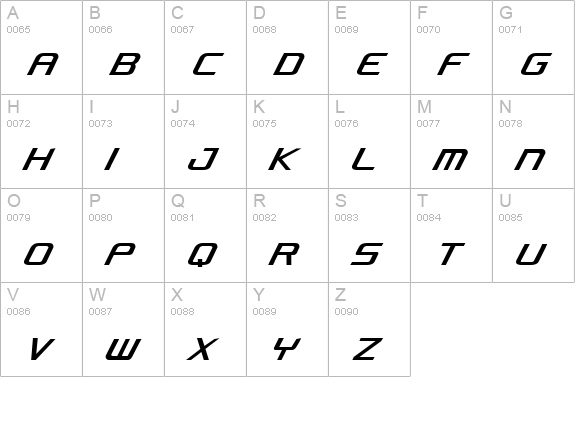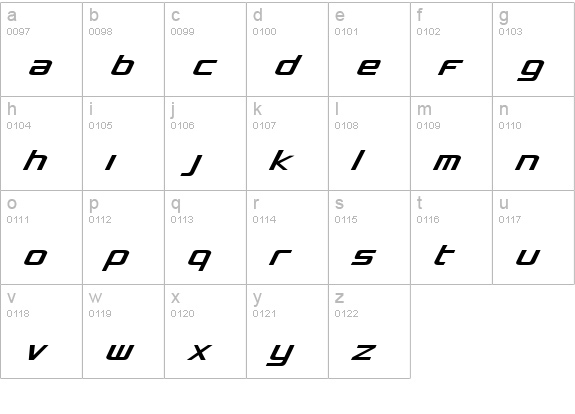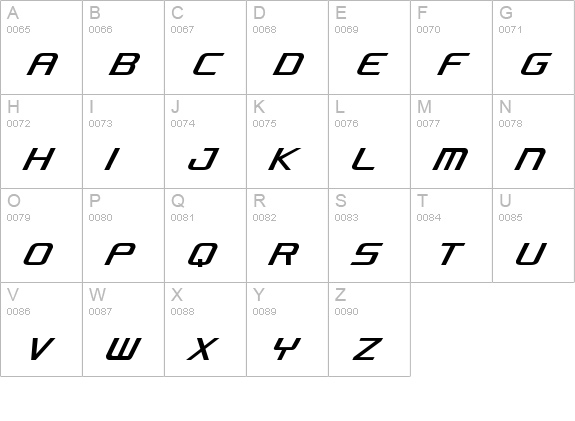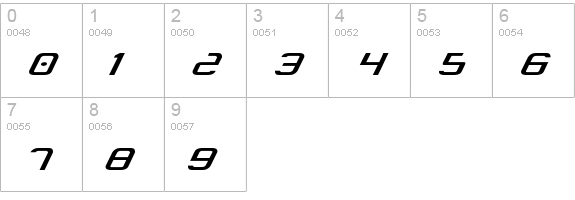
Concielian Condensed is a distinctive, condensed-width variant in the Concielian typeface family \xE2\x80\x94 well suited to design and typography projects.
Concielian Condensed font is a modern and stylish typeface that exudes sophistication and elegance. Its sleek and streamlined design makes it perfect for a wide range of projects, from branding to editorial design. With its clean lines and contemporary feel, Concielian Condensed font is sure to make a statement and elevate any design it is used in. The font is versatile and can be used for both headlines and body text, adding a touch of class to any project. Best of all, Concielian Condensed font is available for free download at FontsMarket.com. This means that you can easily access this high-quality font and incorporate it into your designs without any cost. Don't miss out on the opportunity to enhance your projects with the elegance and style of Concielian Condensed font, now available for free at FontsMarket.com.